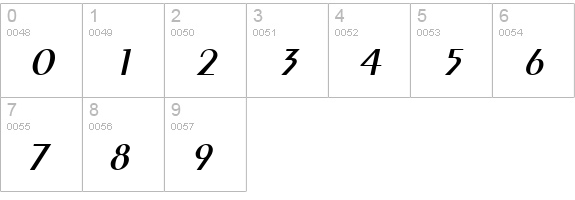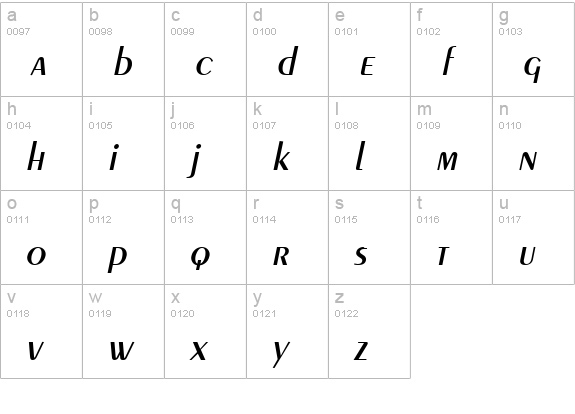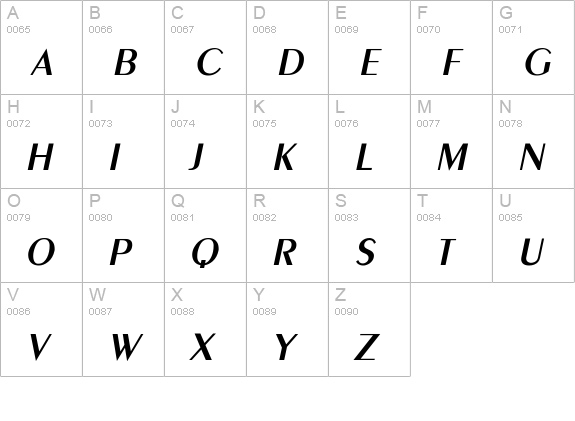
Pare Italic is a distinctive, italic variant in the Pare typeface family \xE2\x80\x94 well suited to design and typography projects.
Pare Italic is a stunning and versatile font that effortlessly combines elegance with a touch of modernity. Its sleek and slender letterforms exude sophistication, making it the perfect choice for a wide range of design projects. Whether you're creating a luxurious logo, a stylish invitation, or a refined editorial layout, Pare Italic will elevate your design to new heights. This font's italicized variant adds an extra layer of dynamism and flair to your typographic compositions. The slanted and flowing letterforms create a sense of movement and energy, adding a contemporary twist to any design. The subtle variations in stroke width give Pare Italic a sense of character and uniqueness, making it stand out from the crowd. One of the best aspects of Pare Italic is that it is freely available to download at FontsMarket.com. This means that you can access this exceptional font at no cost, making it accessible to designers of all levels. With its high-quality design and professional aesthetics, Pare Italic offers incredible value for anyone seeking a premium font without breaking the bank. Whether you're a seasoned designer looking to add a touch of sophistication to your projects or a beginner searching for a versatile font to experiment with, Pare Italic is the perfect choice. Download it for free at FontsMarket.com today and unlock the limitless possibilities that this remarkable font has to offer.